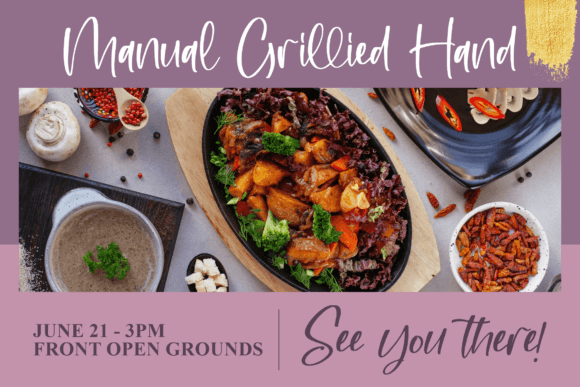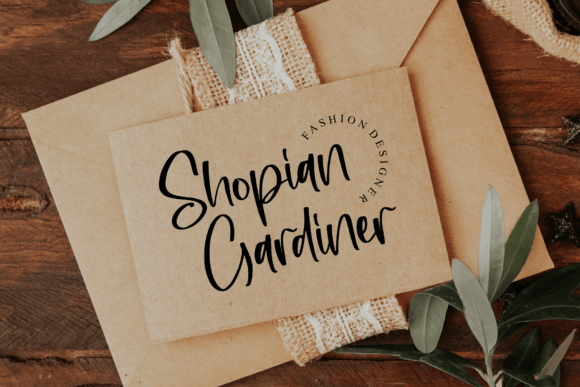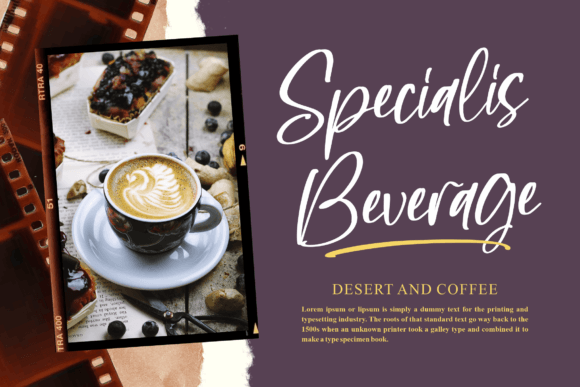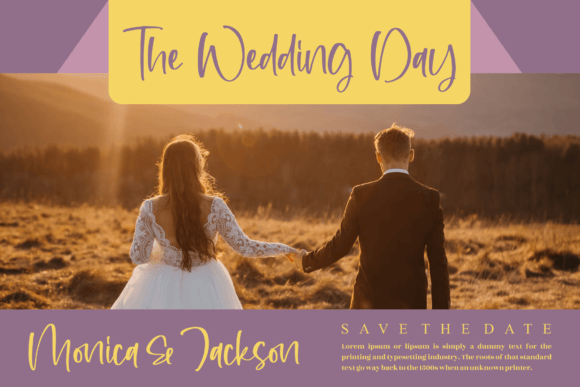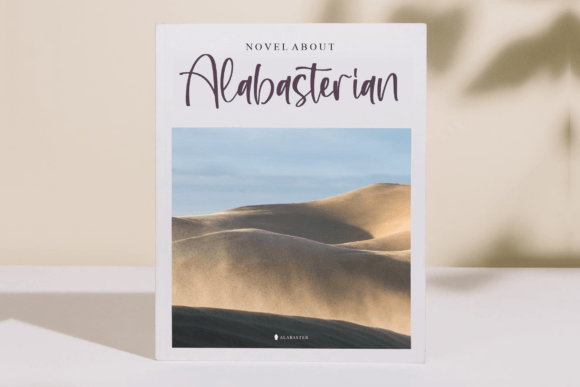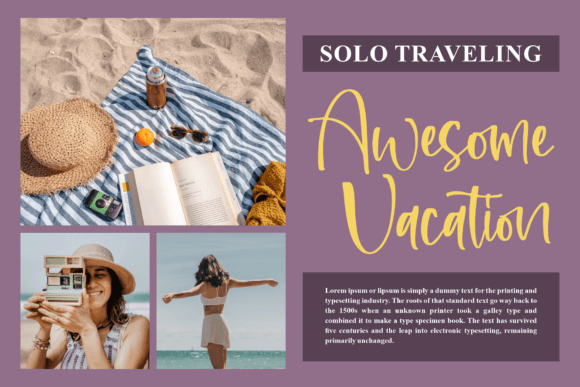
Introduction to Most Somedays Font
Most Somedays is a sweet and cursive handwritten signature script font.
This gentle font will look gorgeous on a variety of design ideas It will add a joyful and romantic touch to each of your projects.